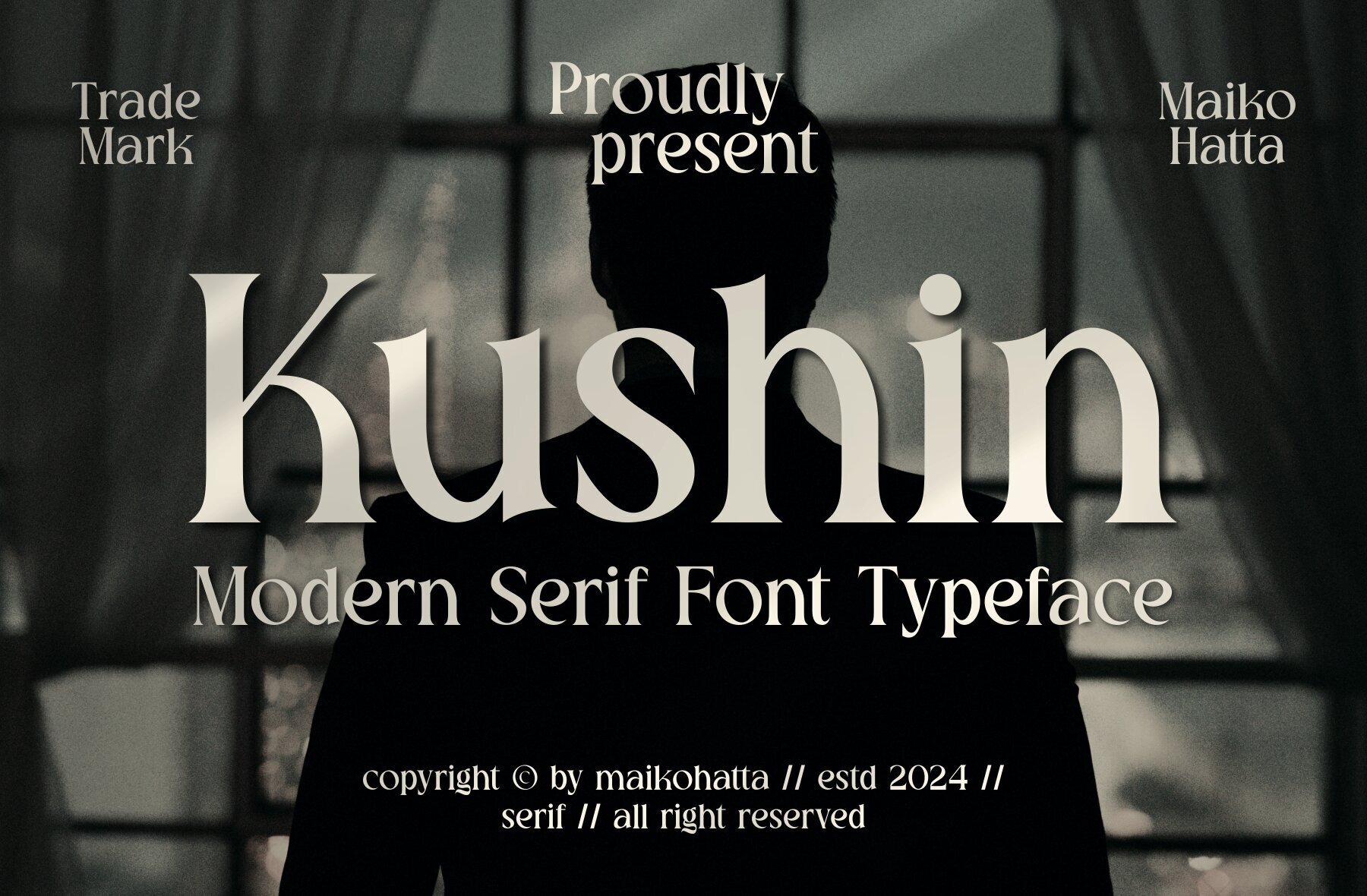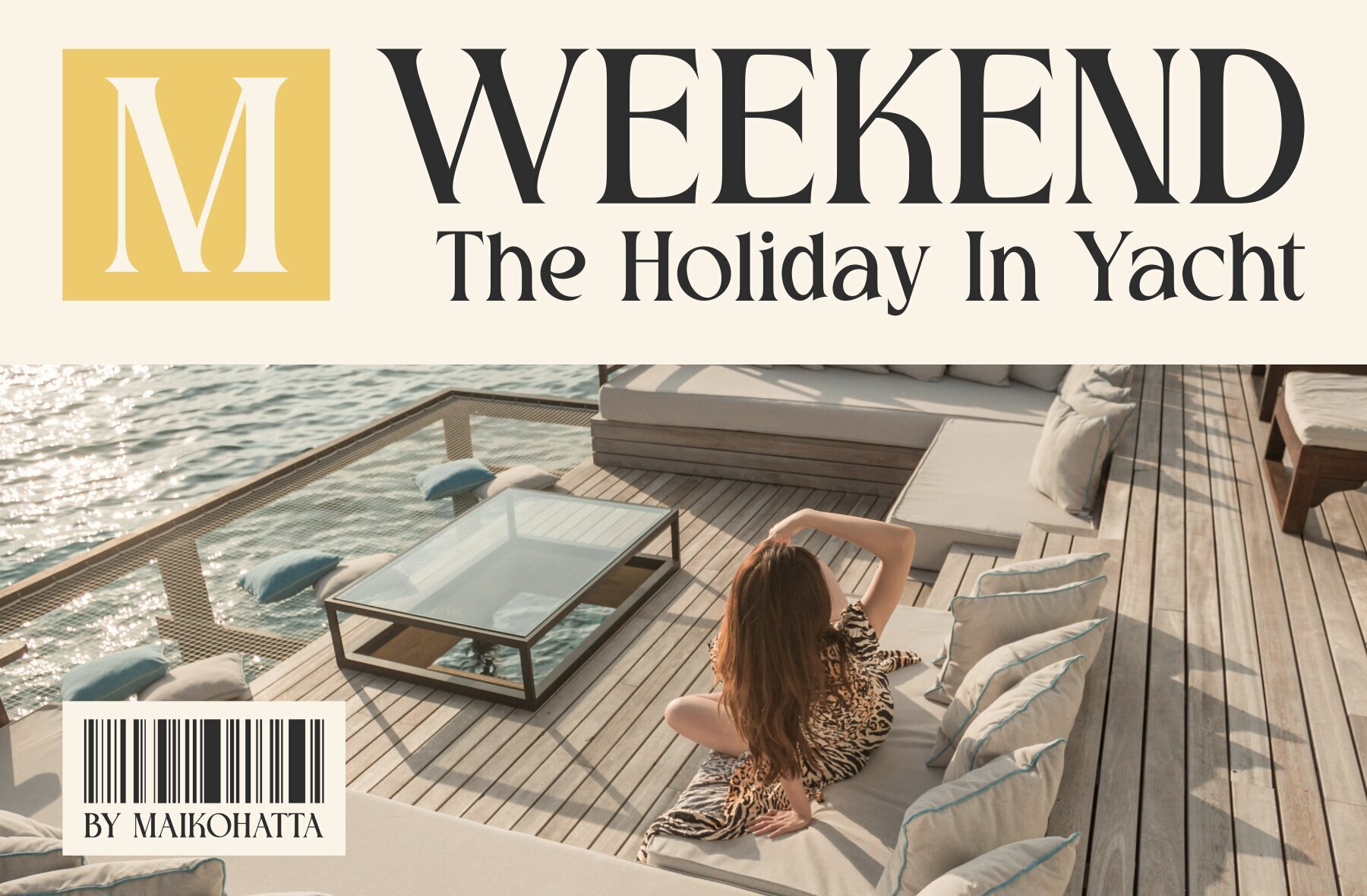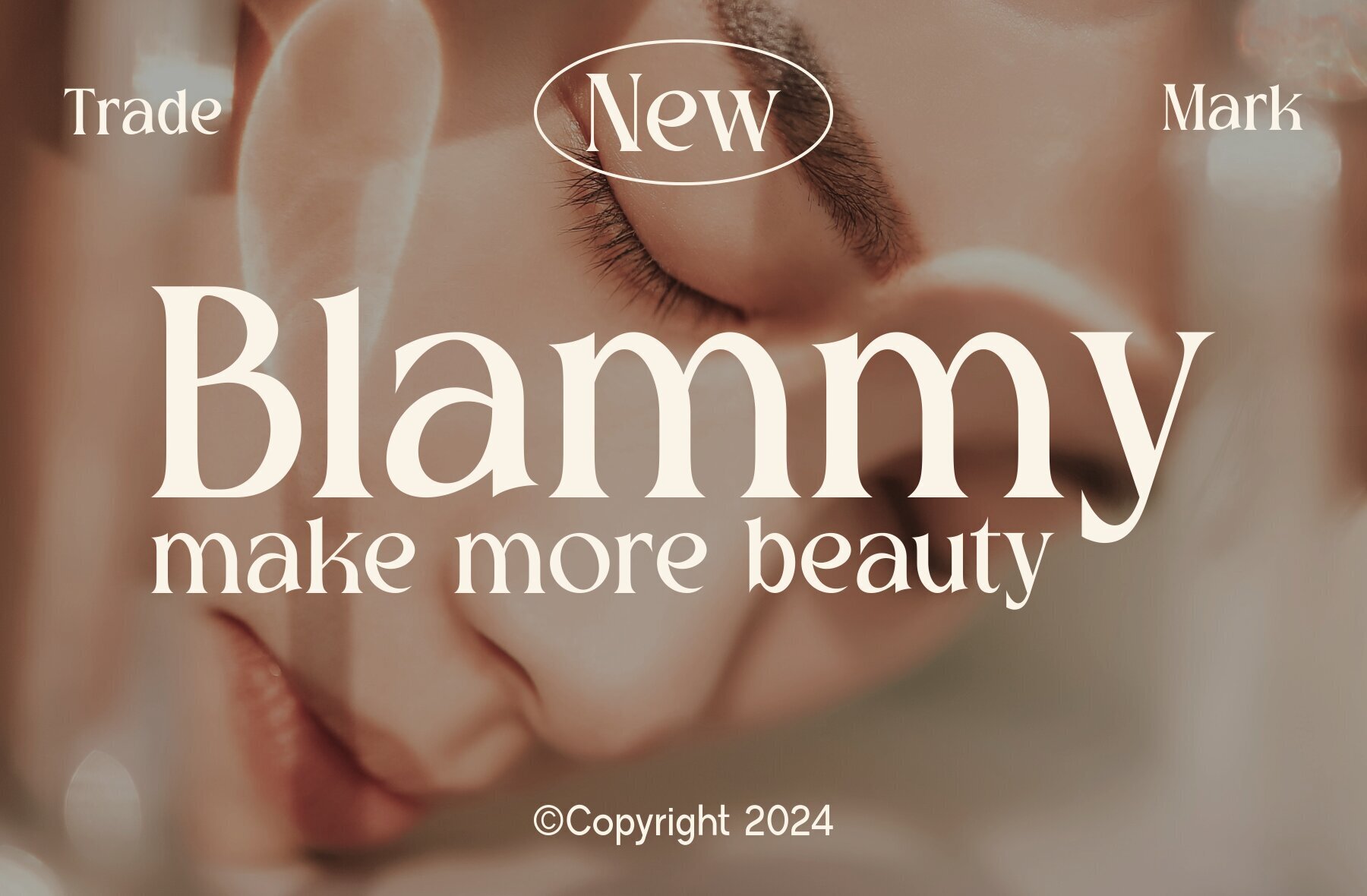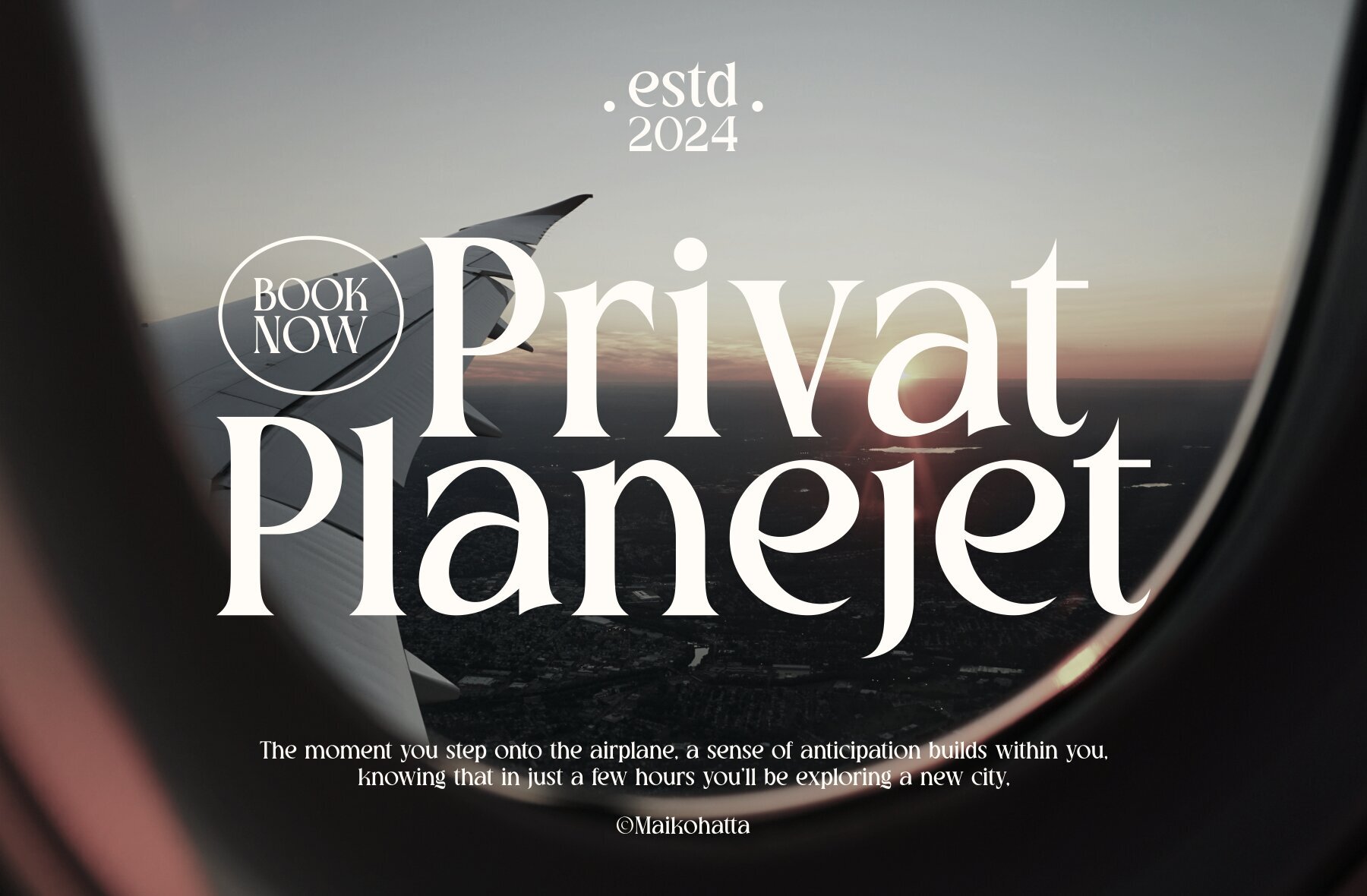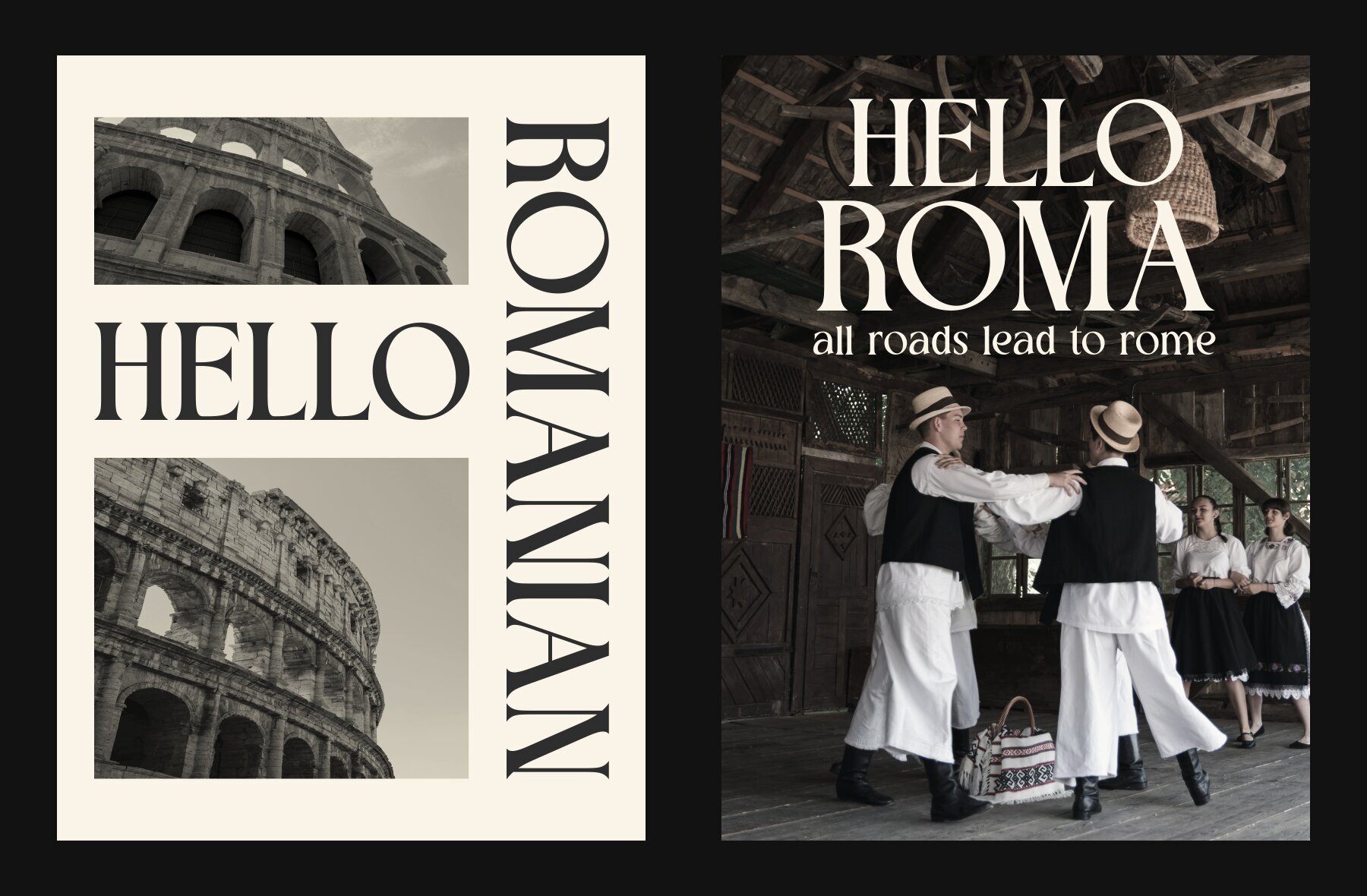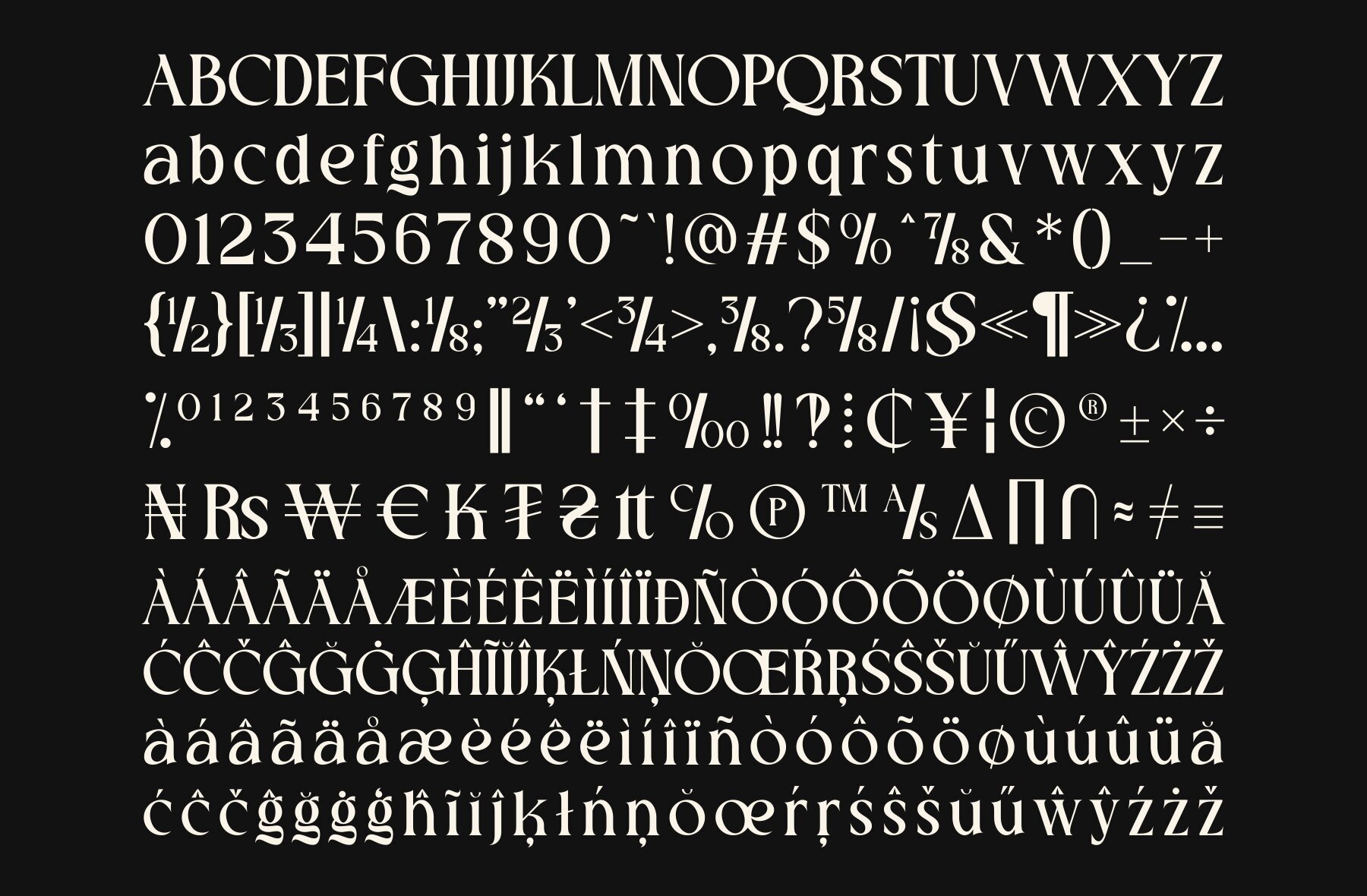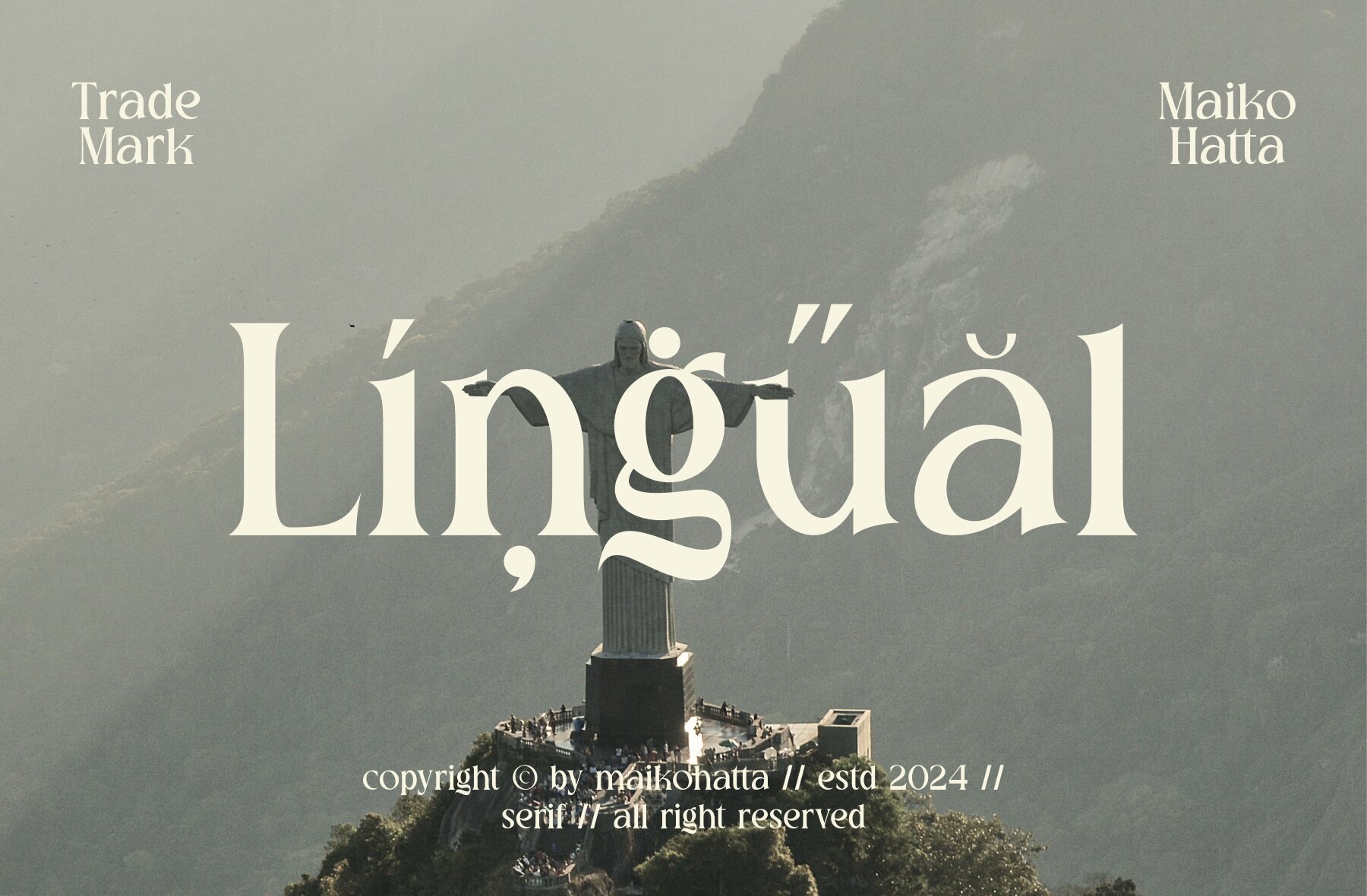
Kushin Font
Kushin Regular
This elegant and bold serif font offers a classic and decorative look, making it perfect for high-contrast design projects. Ideal for headlines, titles, posters, and branding, this font adds a touch of vintage luxury and stylish professionalism to any formal or editorial work.